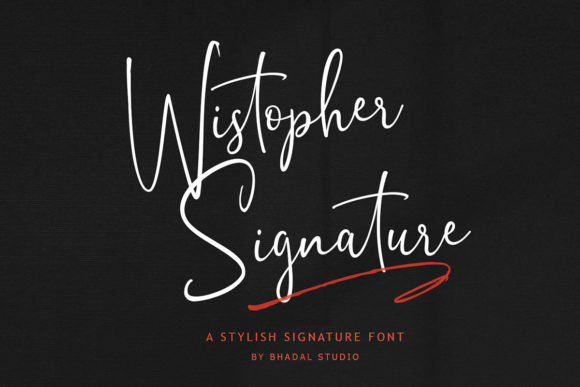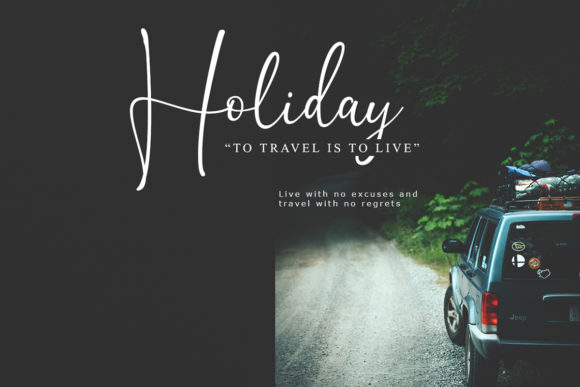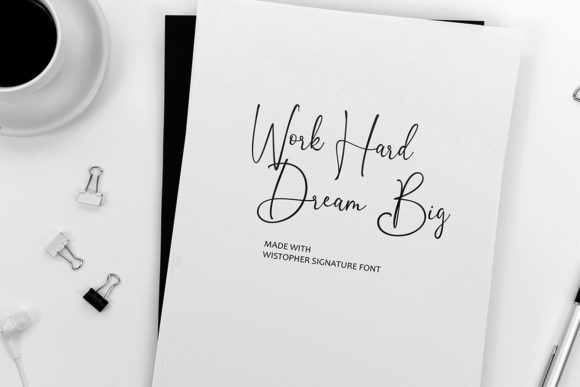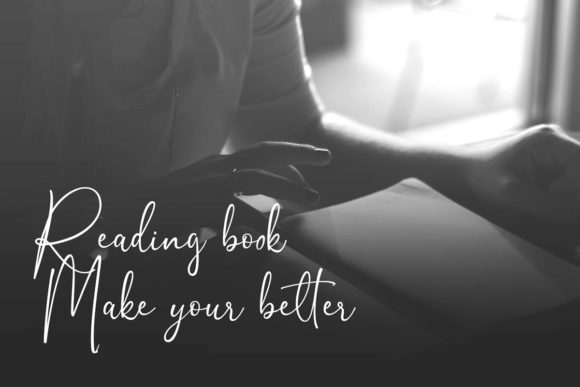
Wistopher Signature Font
About Wistopher Signature Font
Wistopher Signature is an elegant, classy, easy to read, and stylish handwritten font. It is the perfect choice for watermarks on photography, logo designs or signatures, quotes, album covers, business cards, and many other creative projects.